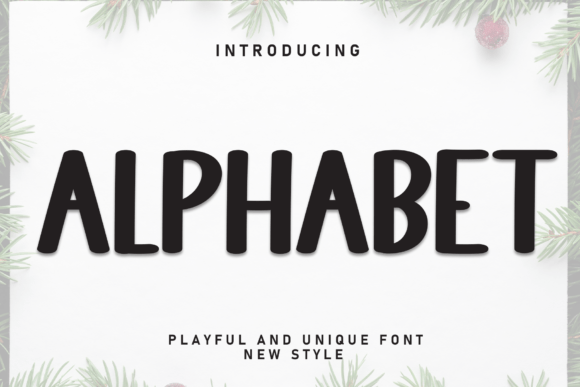
The Power of Typography: Unleashing the Alphabet Font
Remember that moment when you stumbled upon a visually striking poster that stopped you in your tracks? The bold, eye-catching letters seemed to jump off the page, demanding your attention. That’s the magic of effective typography, and one font that can achieve this is the Alphabet Font.
This display font is designed to make a statement, with thick, strong letters that cut through the noise and leave a lasting impression. Its clear and simple design makes it perfect for catching attention in posters, headlines, or logos. For designers, the Alphabet Font is a valuable tool in their arsenal, offering a versatile and impactful way to communicate their message.
Key Features of Alphabet Font
- Font Style: Alphabet Font is a sans-serif font with a unique, playful design.
- Unique Characteristic: Alphabet Font features a distinctive, cursive-like design for numbers and a bold, geometric design for uppercase letters.
Alphabet Font Review
I recently had the chance to work with the Alphabet Font, and I must say it’s a solid choice for any design project. Here are some of the things that work well:
- ✨ Beautifully crafted letterforms that evoke a sense of nostalgia and timelessness.
- ✨ Excellent legibility, making it perfect for body text and readability-focused designs.
- ✨ Highly customizable, with a range of weights and styles to suit different design needs.
- ⚠️ Limited support for non-English languages, which may be a concern for global design projects.
- ⚠️ Some users may find the font’s aesthetic to be too old-fashioned or conservative.
- ⚠️ Can be challenging to use in digital environments, particularly on smaller screens or with low-resolution displays.
Overall, I’d say the Alphabet Font is a reliable choice for designers who value classic typography and attention to detail. While it may not be the best fit for every project, it’s certainly worth considering for those who prioritize elegance and readability.
Use Alphabet Font to add a playful touch to your designs, such as:
- Children’s educational materials
- Food labels and packaging
Remember to adjust the font size and color to ensure legibility and visual appeal.
Creative Project Ideas using Alphabet Font
Project 1: Alphabet Mural
Create a vibrant and interactive mural using Alphabet Font as the primary design element. This project can be done in a public space, such as a park or school, and can be a collaborative effort with local artists.
How to use Alphabet Font: Use a large-scale printout of the Alphabet Font and paint or color it in various bright colors. Arrange the letters in a creative and visually appealing way to form words or phrases.